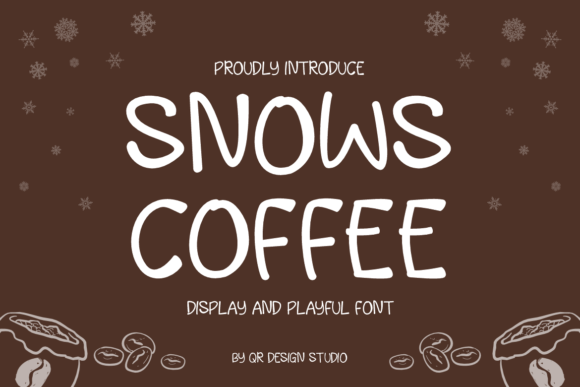
Introducing Snows Coffee Font, the best font for web reports that will bring your designs to life! Created by qrdesignstd, this sweet and friendly handwritten font is the ultimate choice for those seeking a unique and natural style. With Snows Coffee, the possibilities are endless, allowing you to unleash your creativity and captivate your audience like never before.
This script font is carefully crafted to add a touch of charm and elegance to any project. Whether you're designing a website, creating eye-catching graphics, or even crafting stunning invitations, Snows Coffee is the perfect companion. Its versatility and adaptability ensure that it seamlessly integrates into any design, delivering a truly remarkable result.
One of the key features that sets Snows Coffee apart is its ability to evoke emotions and create a connection with your audience. The flowing lines and organic strokes of this font invoke a sense of warmth and friendliness, instantly making your designs more approachable and relatable. Your audience will be drawn in and captivated by the inviting nature of Snows Coffee.
But that's not all – Snows Coffee is also packed with functionality. Its legibility ensures that your message is delivered with clarity, making it ideal for web reports and any text-heavy projects. With Snows Coffee, you can effortlessly communicate your ideas while maintaining a visually stunning aesthetic.
Don't miss out on the opportunity to elevate your designs with Snows Coffee. It's not just a font – it's a gateway to creativity and success. Whether you're a seasoned designer or just starting out, Snows Coffee will empower you to stand out from the crowd and leave a lasting impression on your audience.